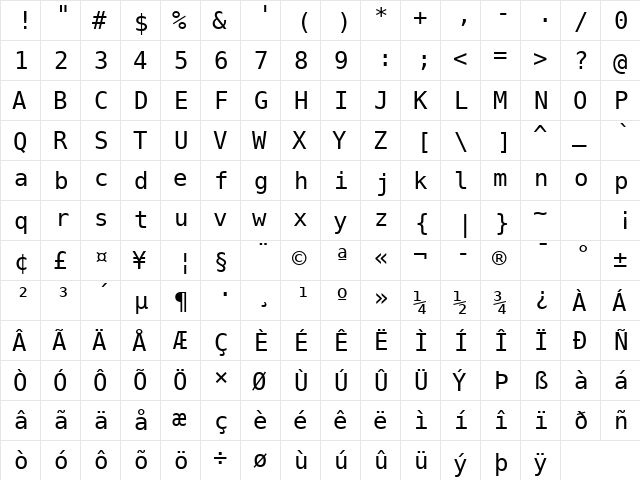
DejaVu Sans Mono Book
Design Context for DejaVu Sans Mono Typeface
DejaVu Sans Mono uses fixed-width spacing throughout, giving it the structured, systematic character associated with coding environments and technical documentation.
A natural fit for code editors, technical documentation, developer-focused branding, and terminal-inspired UI.
Pro Tip: Pair DejaVu Sans Mono with a proportional sans for UI contexts where code-style labels and regular body copy need to coexist.